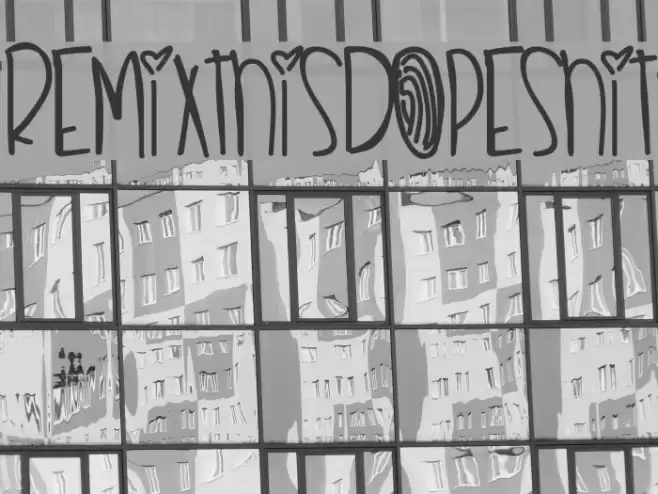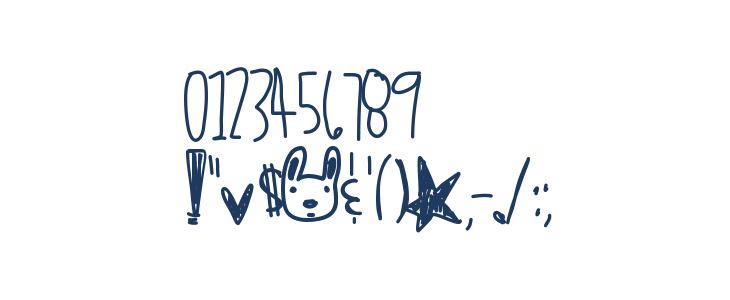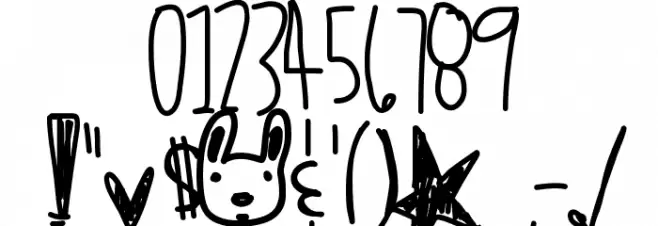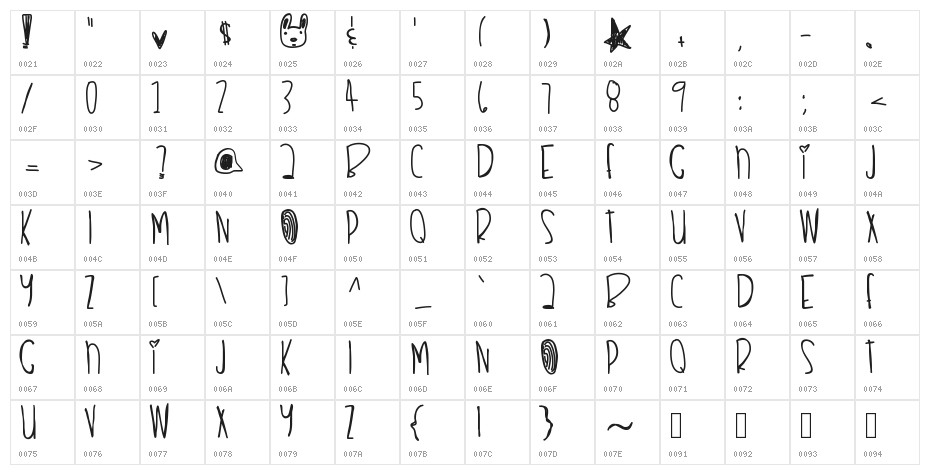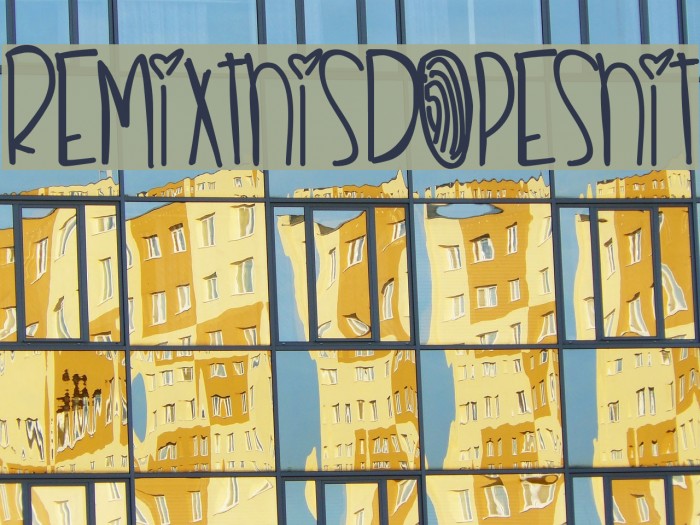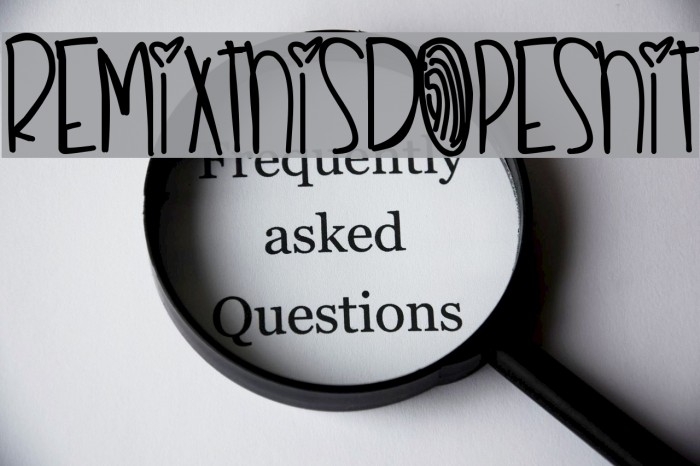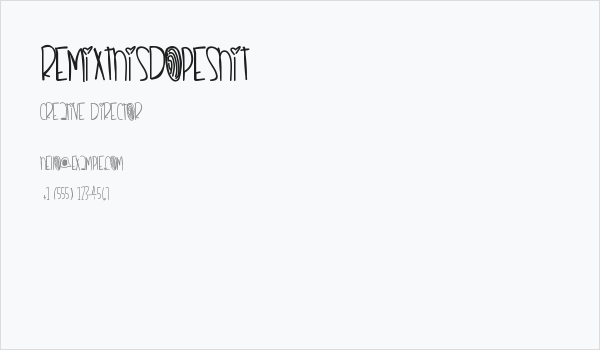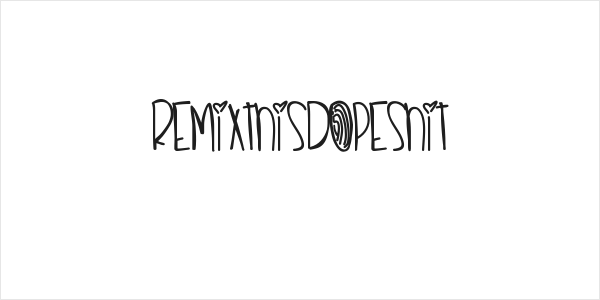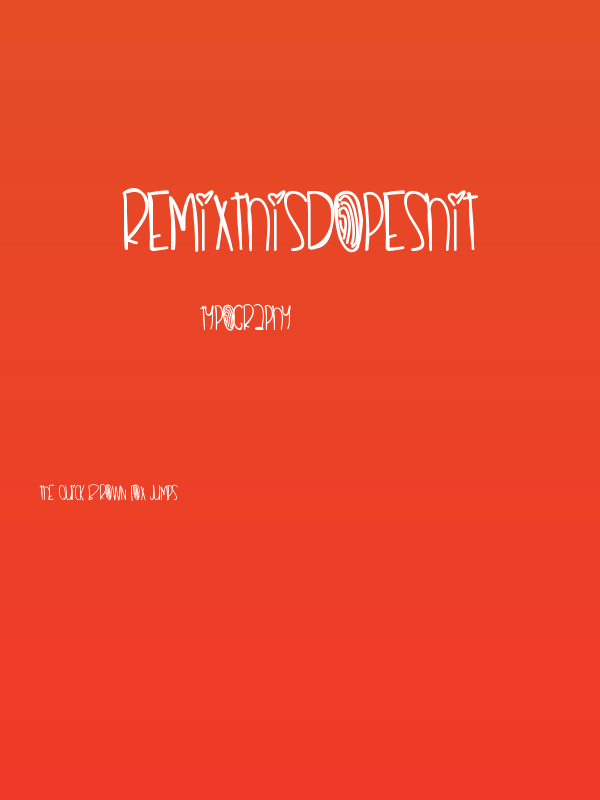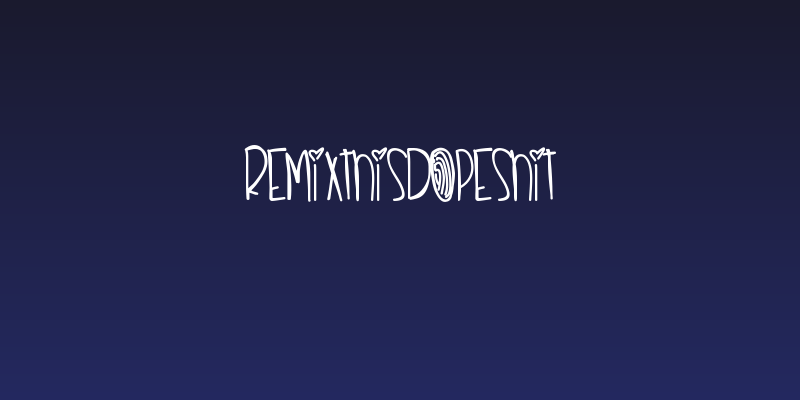
RemixThisDopeshit Font
RemixThisDopeshit Description
This font features a playful and artistic style, characterized by its tall, narrow letters with a hand-drawn appearance. Each character exhibits a unique, whimsical flair, with some letters incorporating decorative elements such as hearts or swirls. The overall look is casual and expressive, making it ideal for creative projects. The numbers and special characters maintain the same playful aesthetic, adding to the font's cohesive design. The strokes are consistent in thickness, giving it a uniform appearance despite its artistic nature.
A playful, hand-drawn font with tall, narrow letters and whimsical details from Uncategorized fonts.
- Proposed Projects: Ideal for creative projects such as posters, greeting cards, and children's book illustrations.